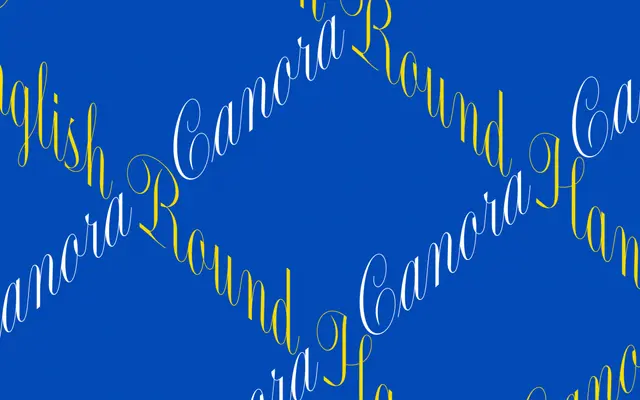
Canora
R-Typography · Rui Abreu · 2021
A mechanised take on English round hand calligraphy in two styles, one upright and one left-leaning, by Rui Abreu.
Rui Abreu pushes the English round hand tradition toward a stylised, mechanical aesthetic by substituting fluid calligraphic transitions with straight lines, abrupt cuts and geometric loops. Canora Frente is the upright style, while Canora Verso tilts to the left at an unusual angle, testing how far the script model can absorb arbitrary design decisions before it ceases to read as calligraphy. Condensed lowercase letters contrast with more decorative, swash-laden capitals across a broad Latin Extended character set.
Canora is rooted in English round hand calligraphy, a formal copperplate-derived script tradition. Its mechanical interpretation with straight lines and abrupt cuts pushes it toward stylised display script rather than orthodox calligraphy.